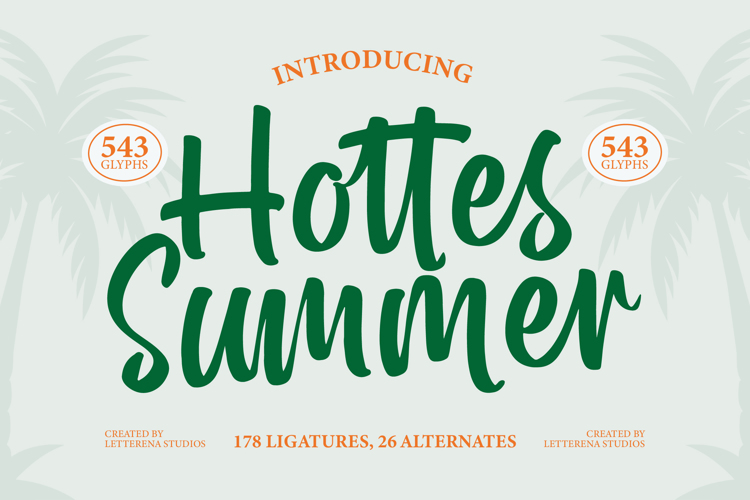
Hottes Summer Font
Breezy modern brush script — bouncy handwritten letters with thick-and-thin brush strokes, made for beach and summer designs. Includes full A–Z, a–z, and 0–9 with connecting lowercase script. Great for wedding invitations, greeting cards, quotes, logos, and signage with a warm, sunny feel.